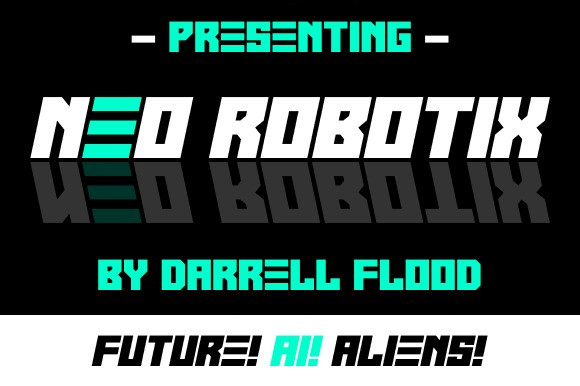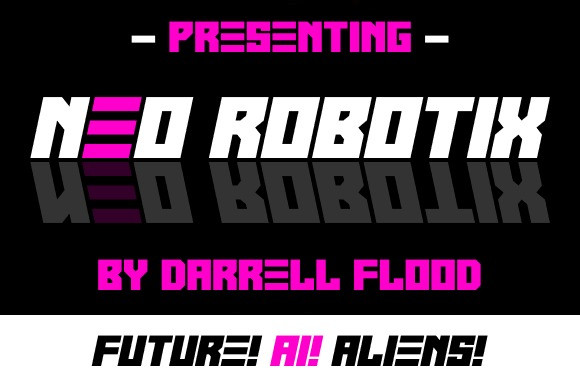
Neo Robotix Font
Neo Robotix Font, A futuristic, angular font in a slick, high-tech style. Perfect for science fiction adventures, technology-related themes, and general modern use.